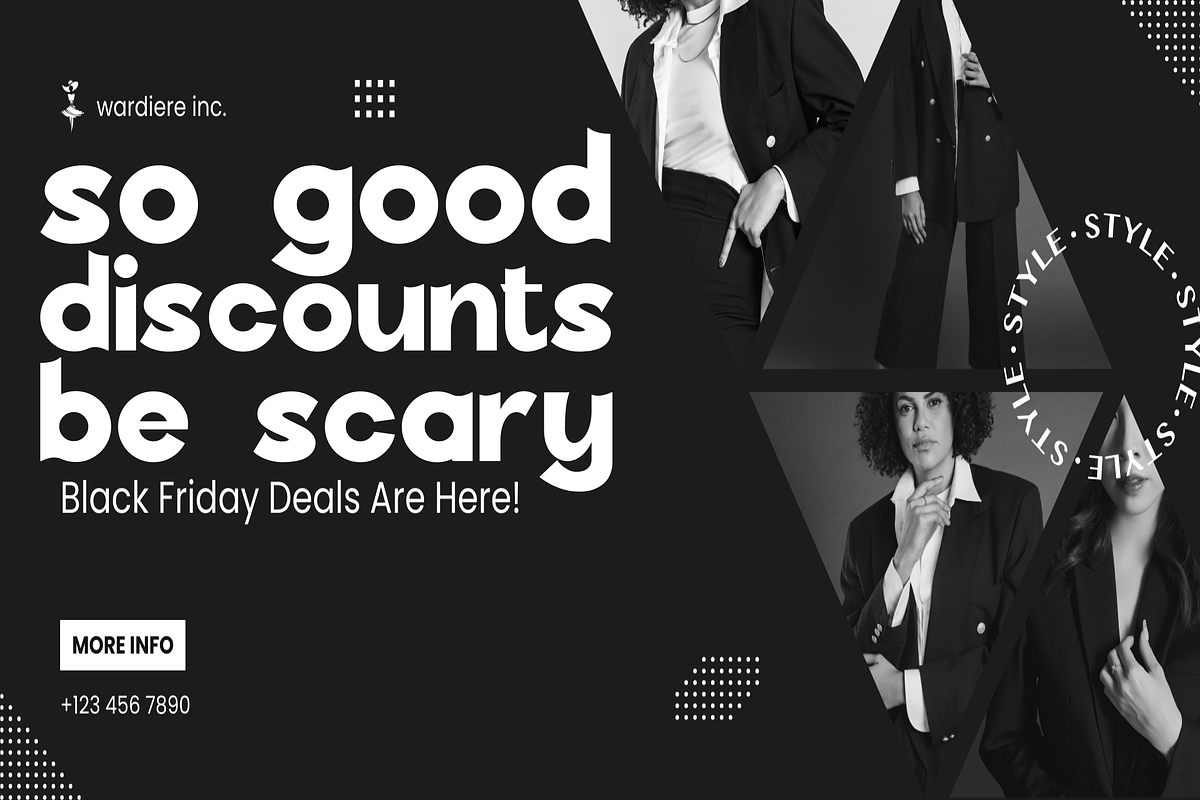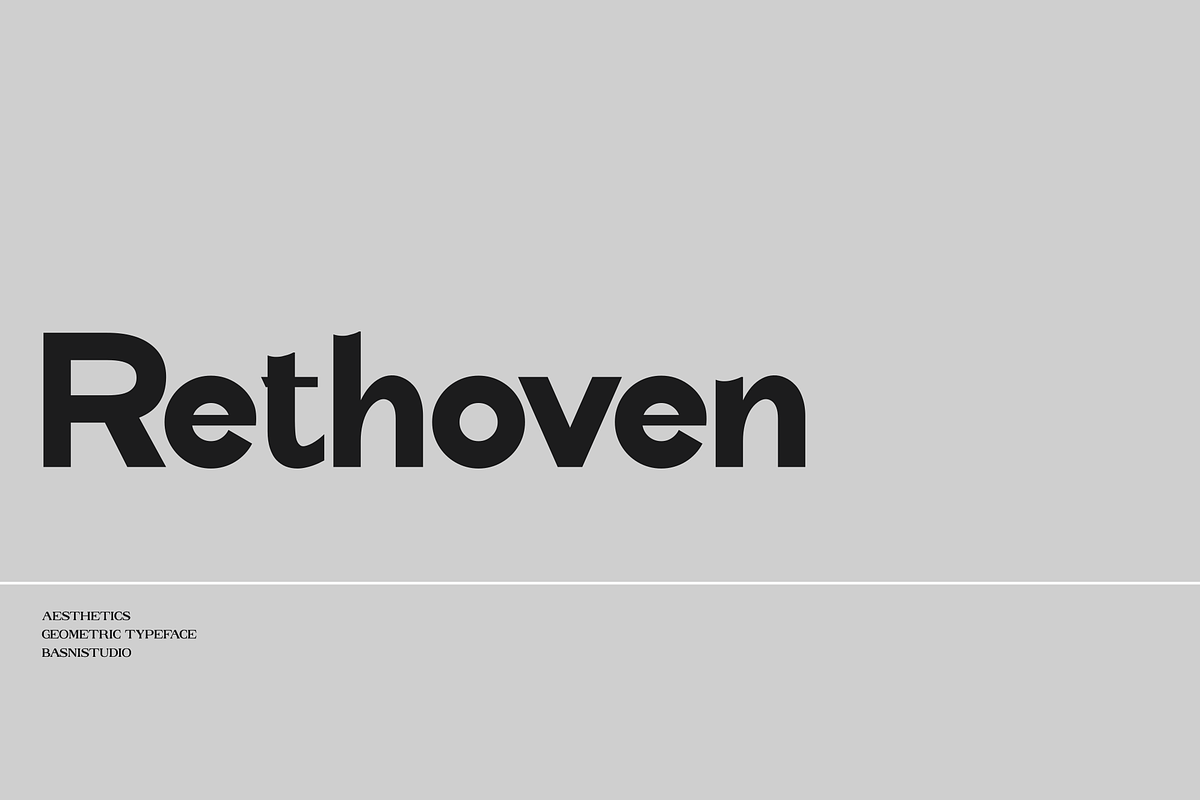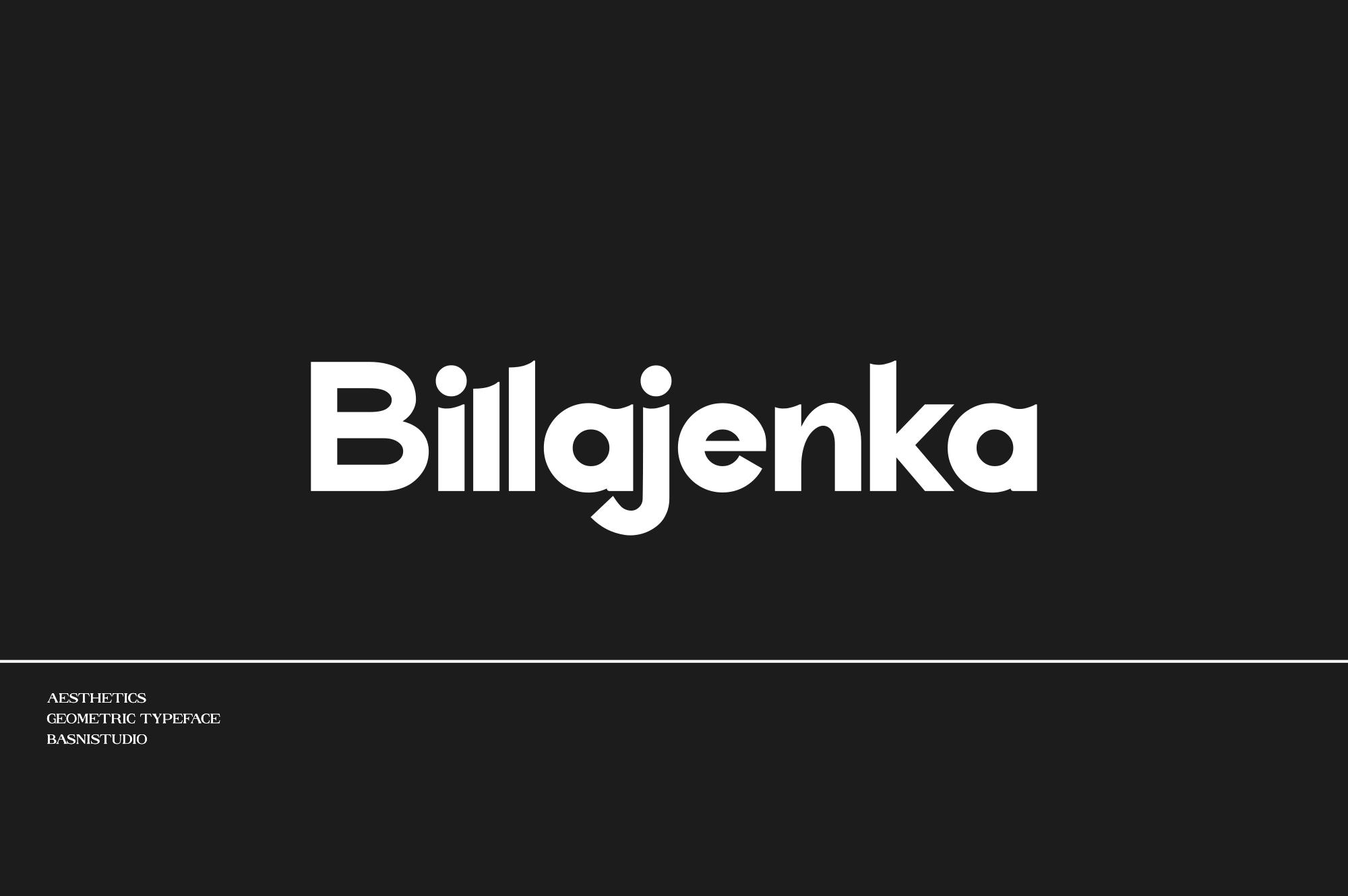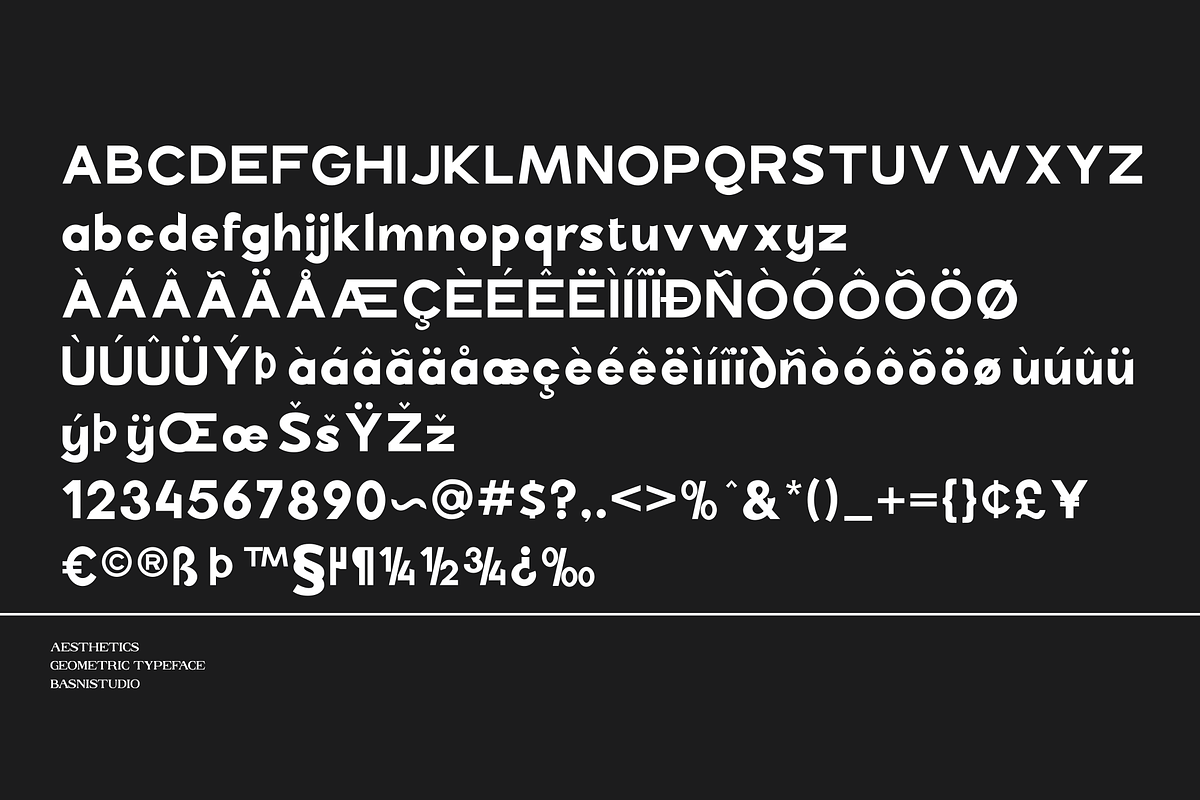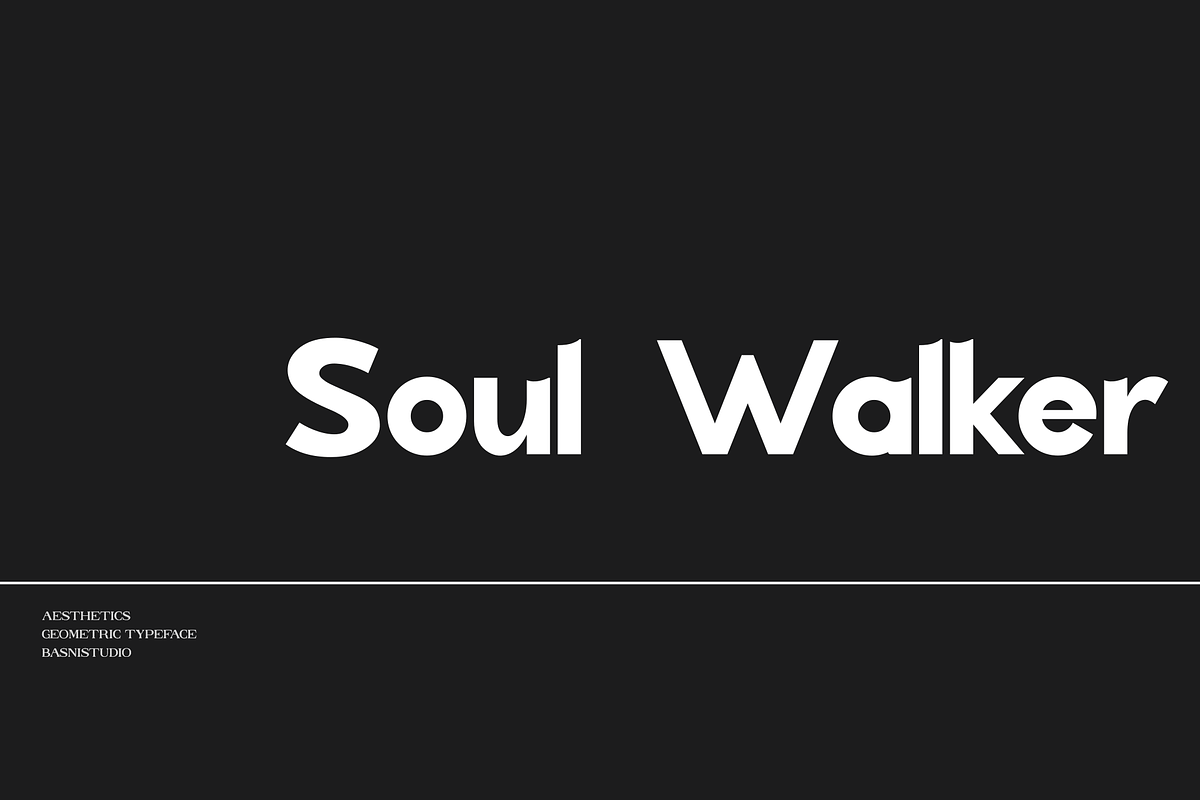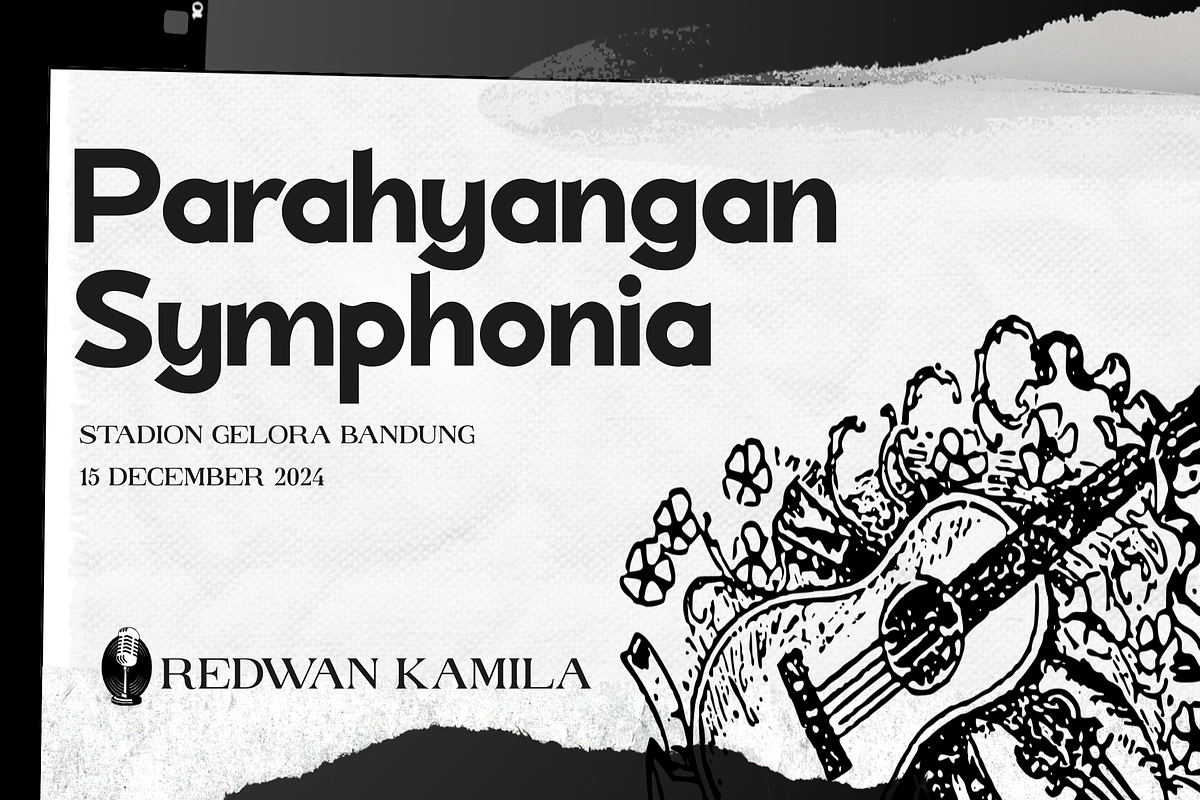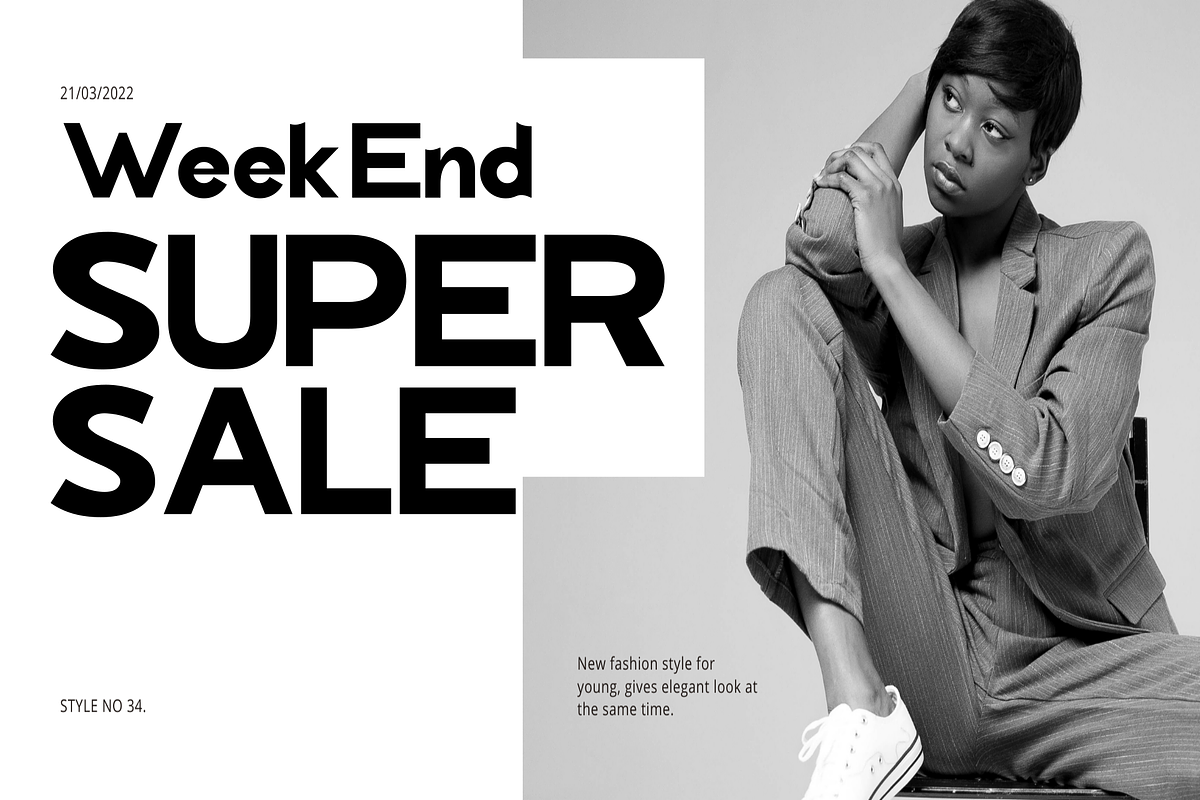
Billajenka Geometric Typeface
Introducing Billajenka Geometric Typeface
Billajenka Geometric Typeface, made with Precision, perfect for branding, websites, and editorial designs. Includes all Characters letters, multilingual support, punctuation, binding. everything can be easily accessed using software that supports OpenType. What’s include: